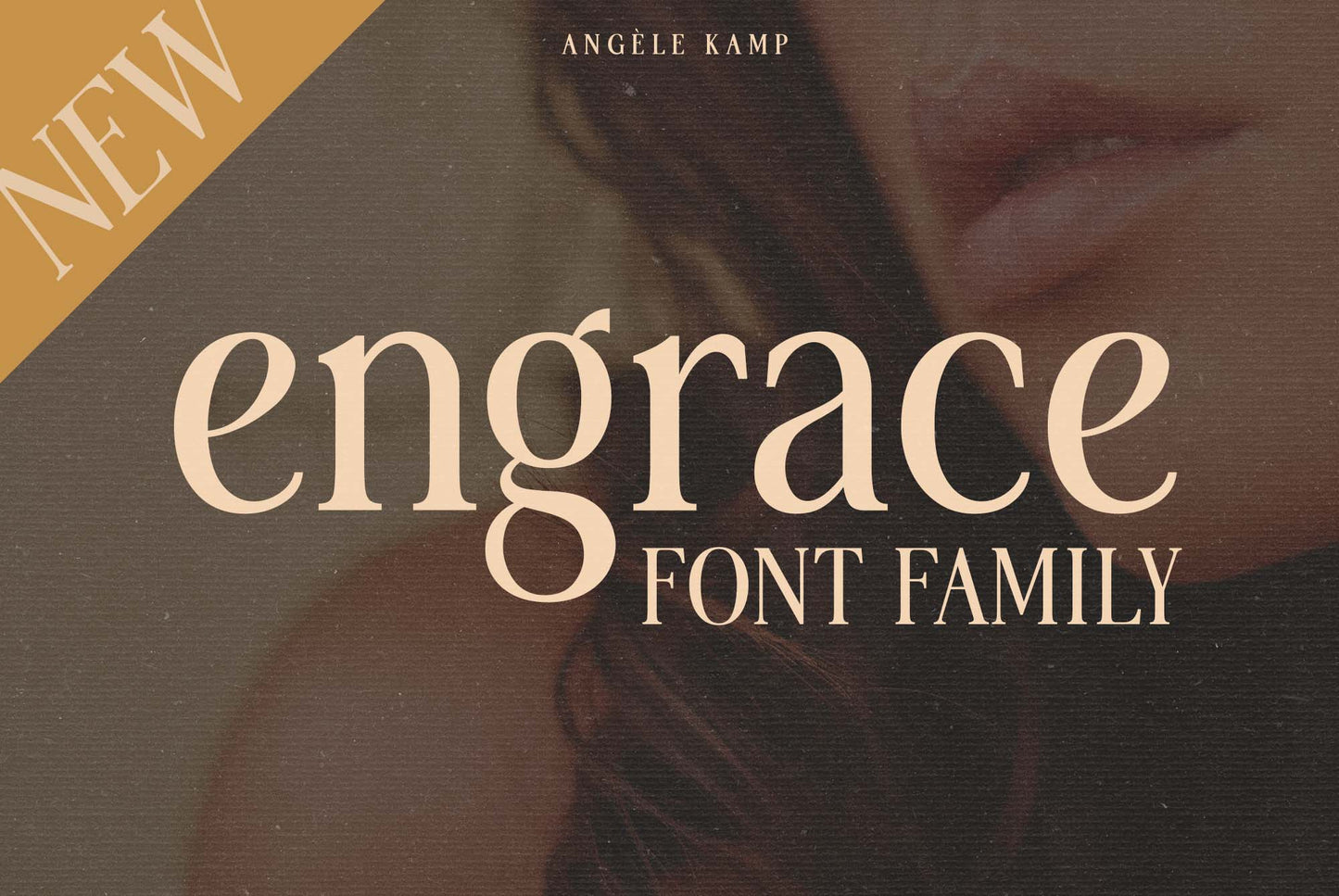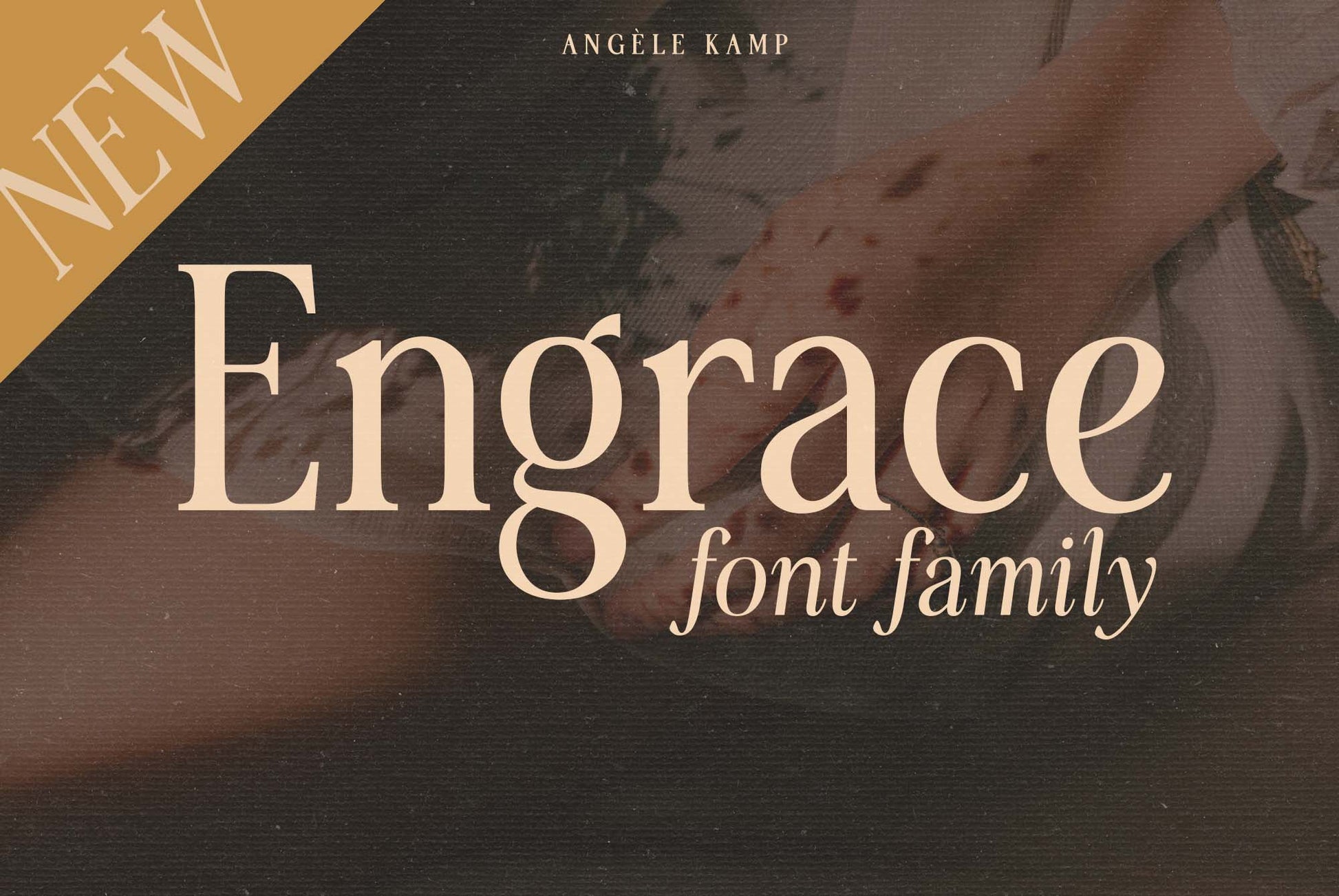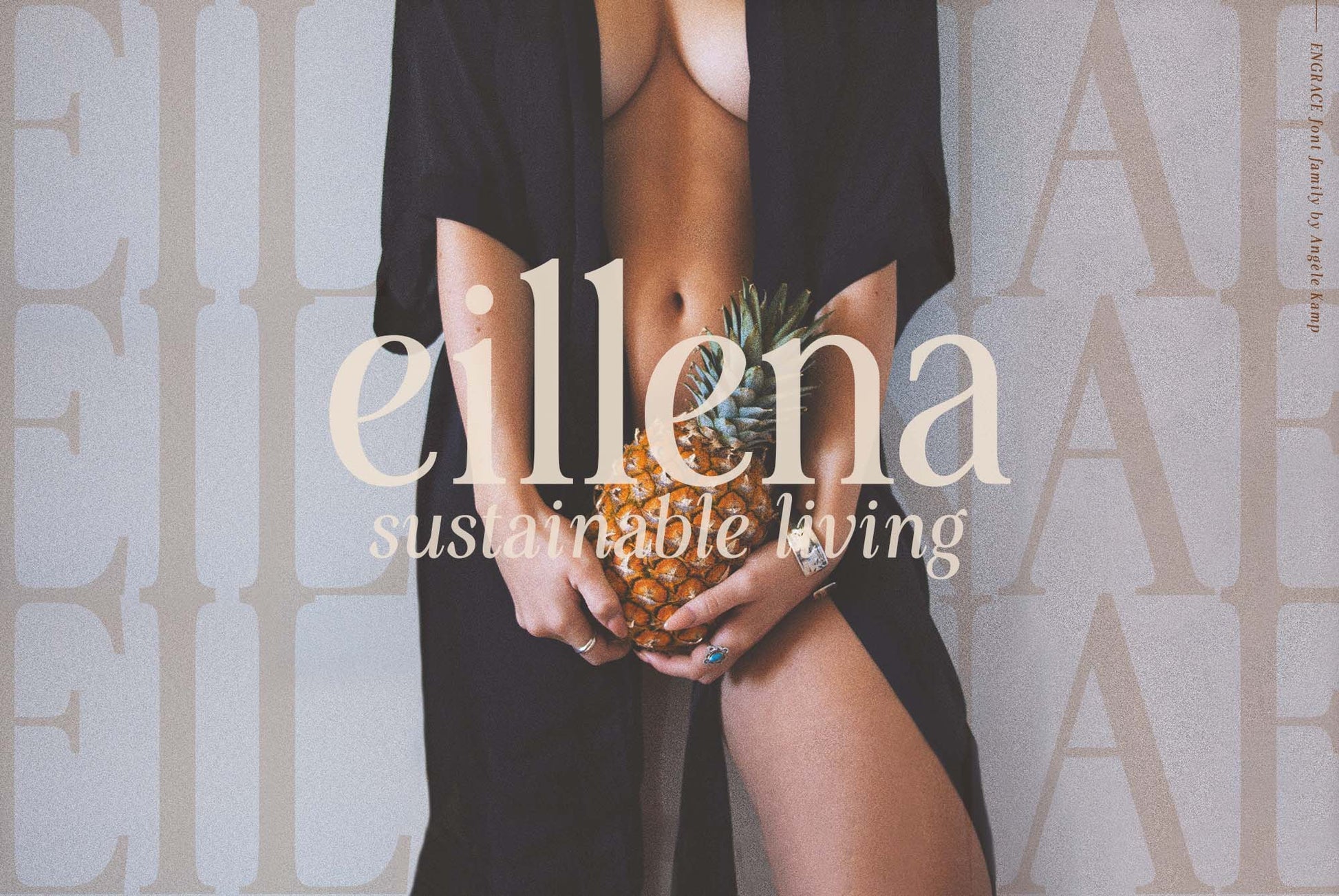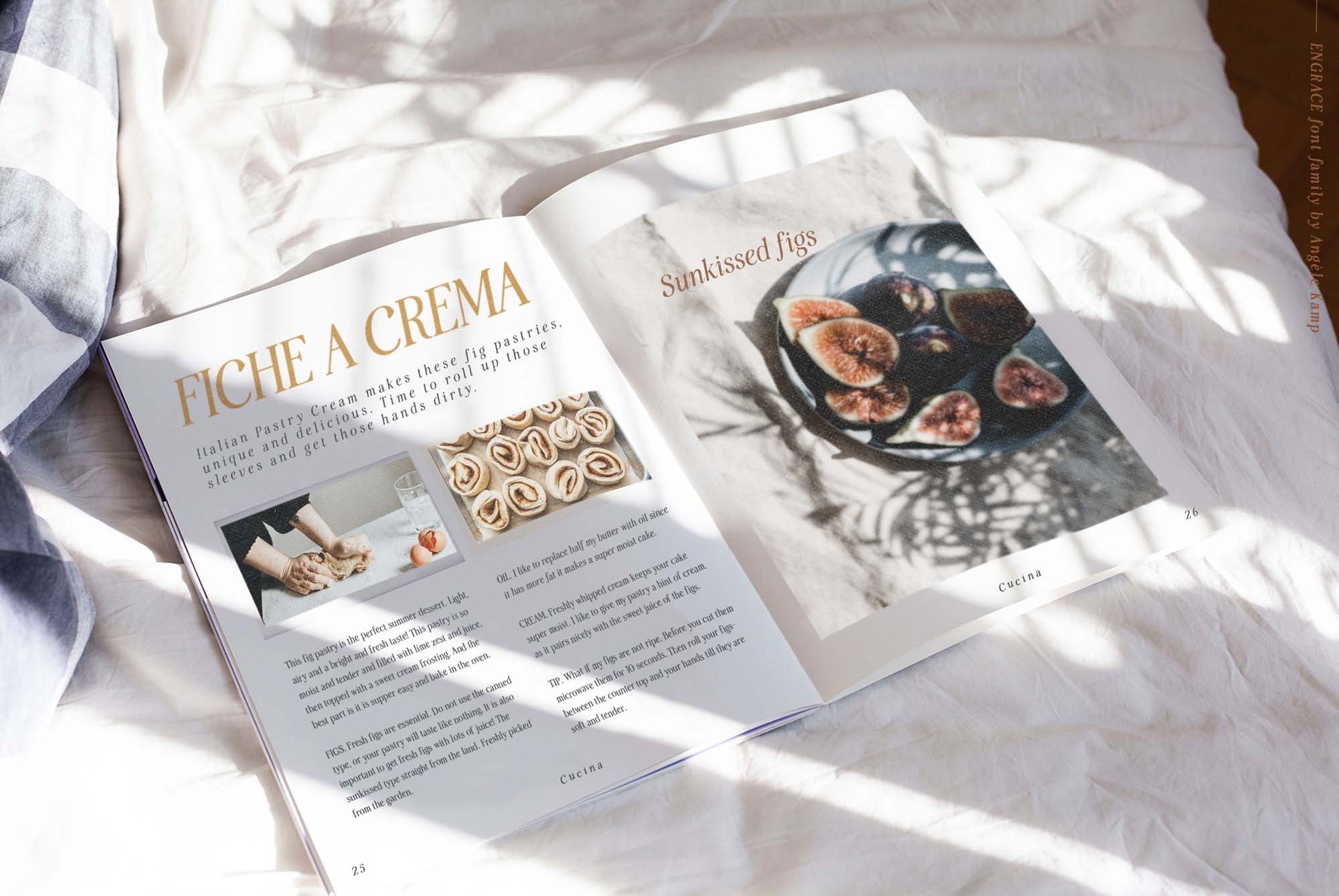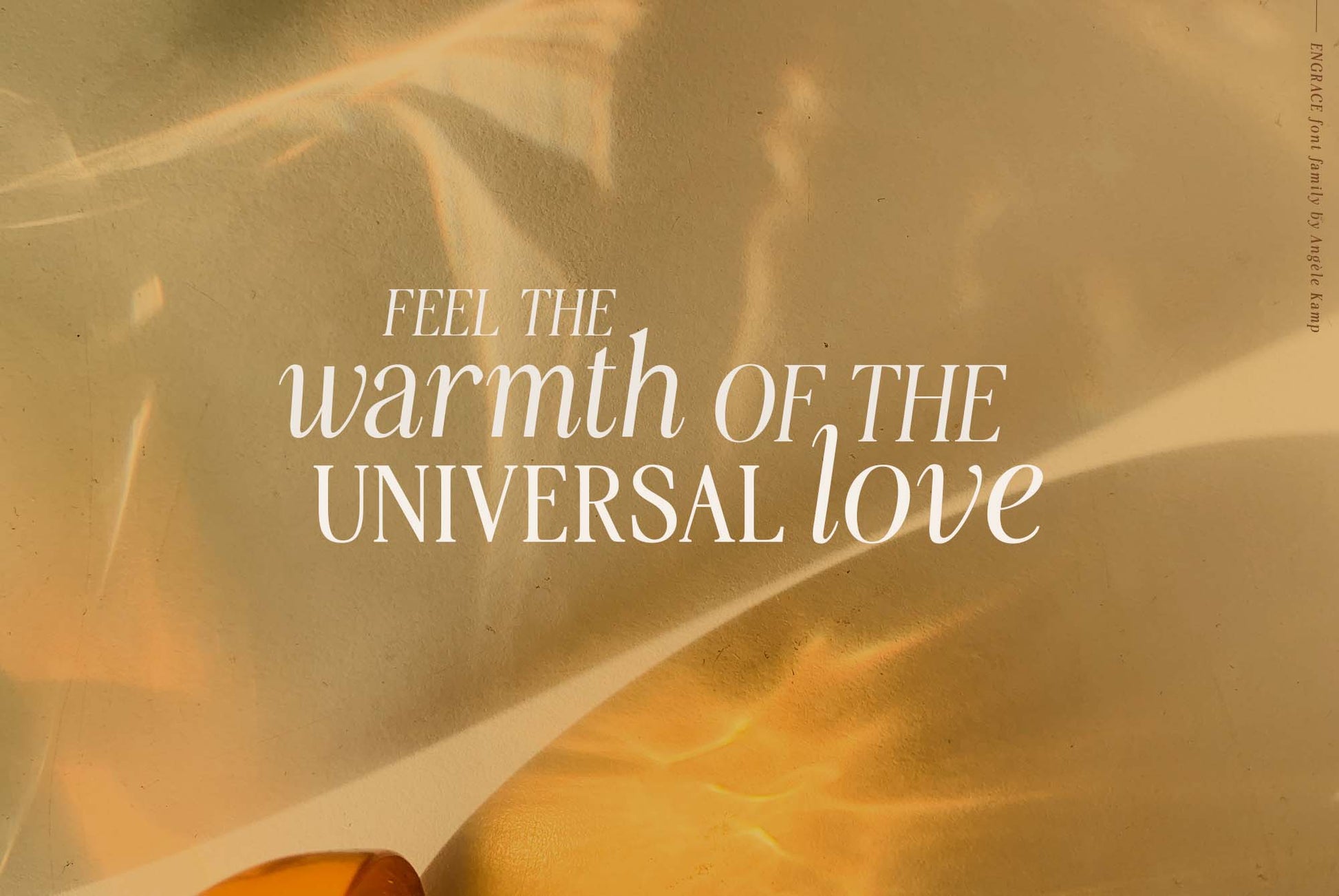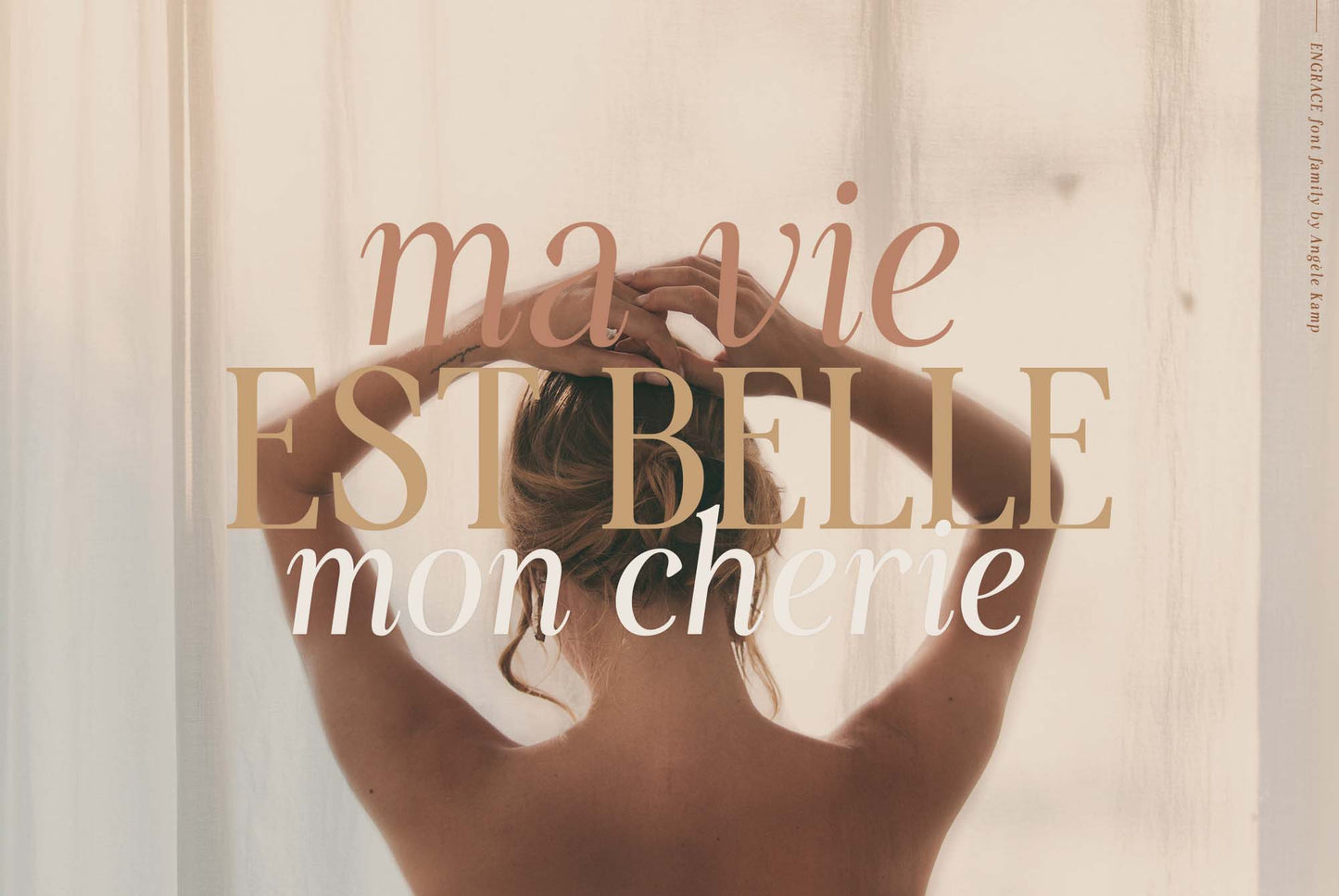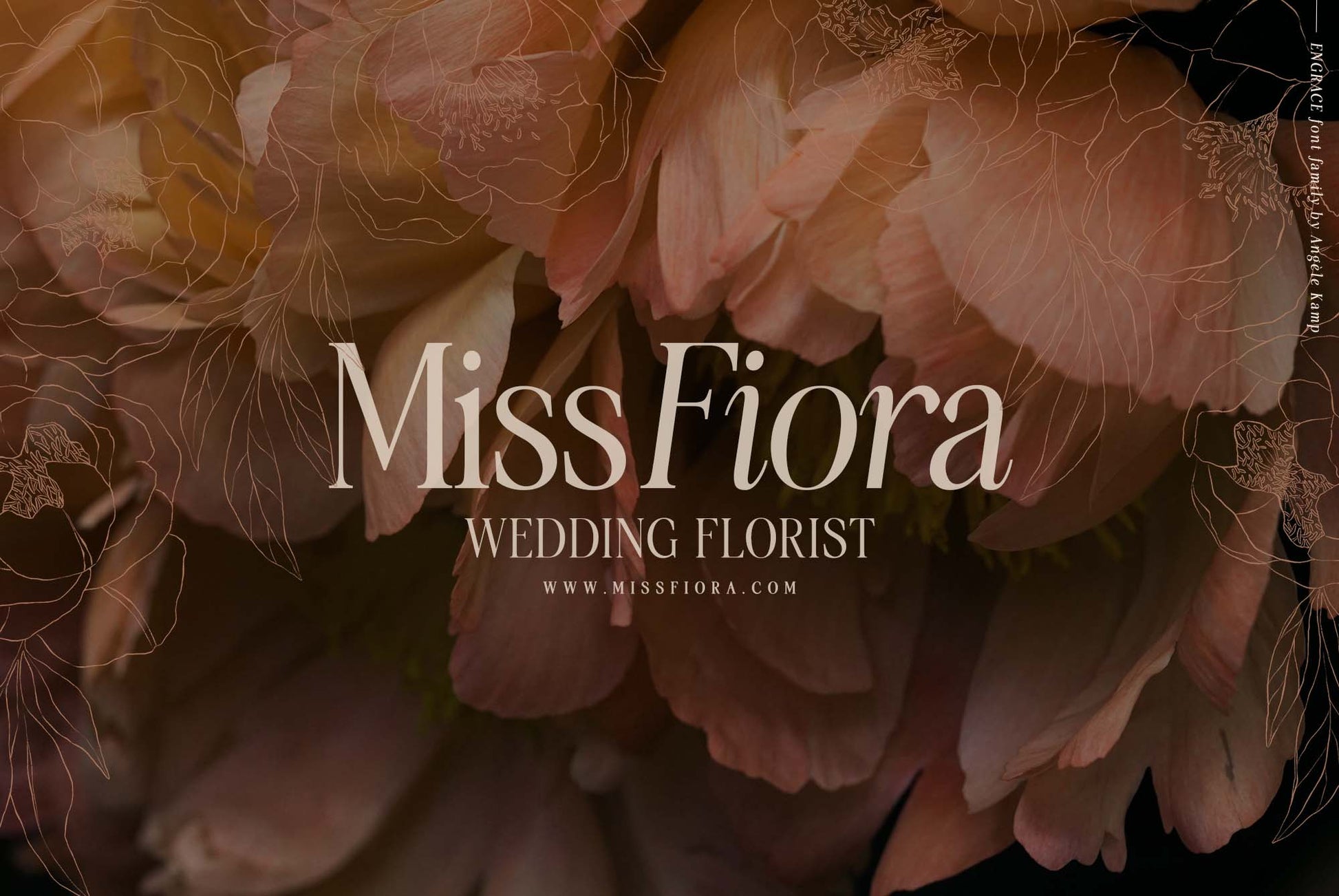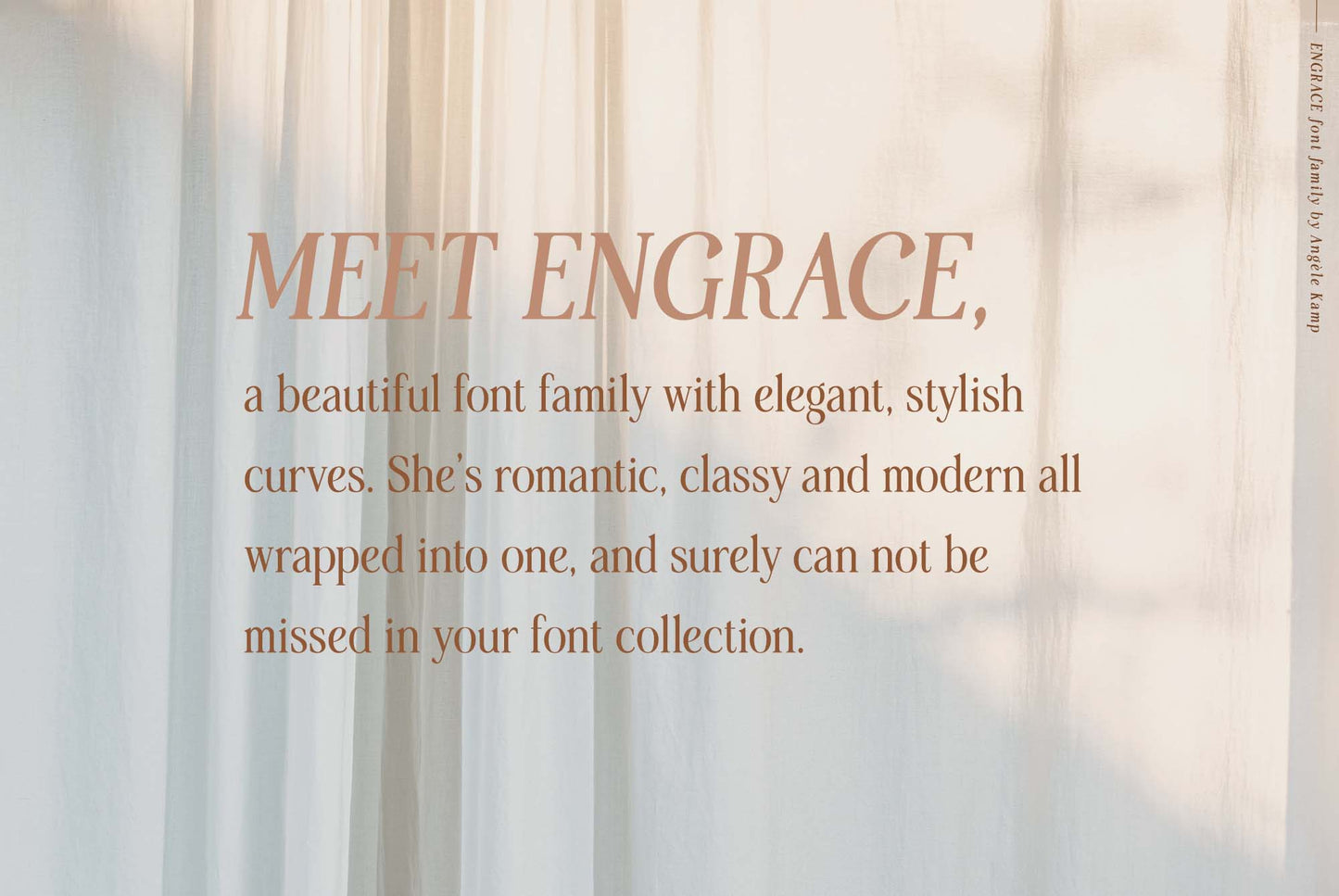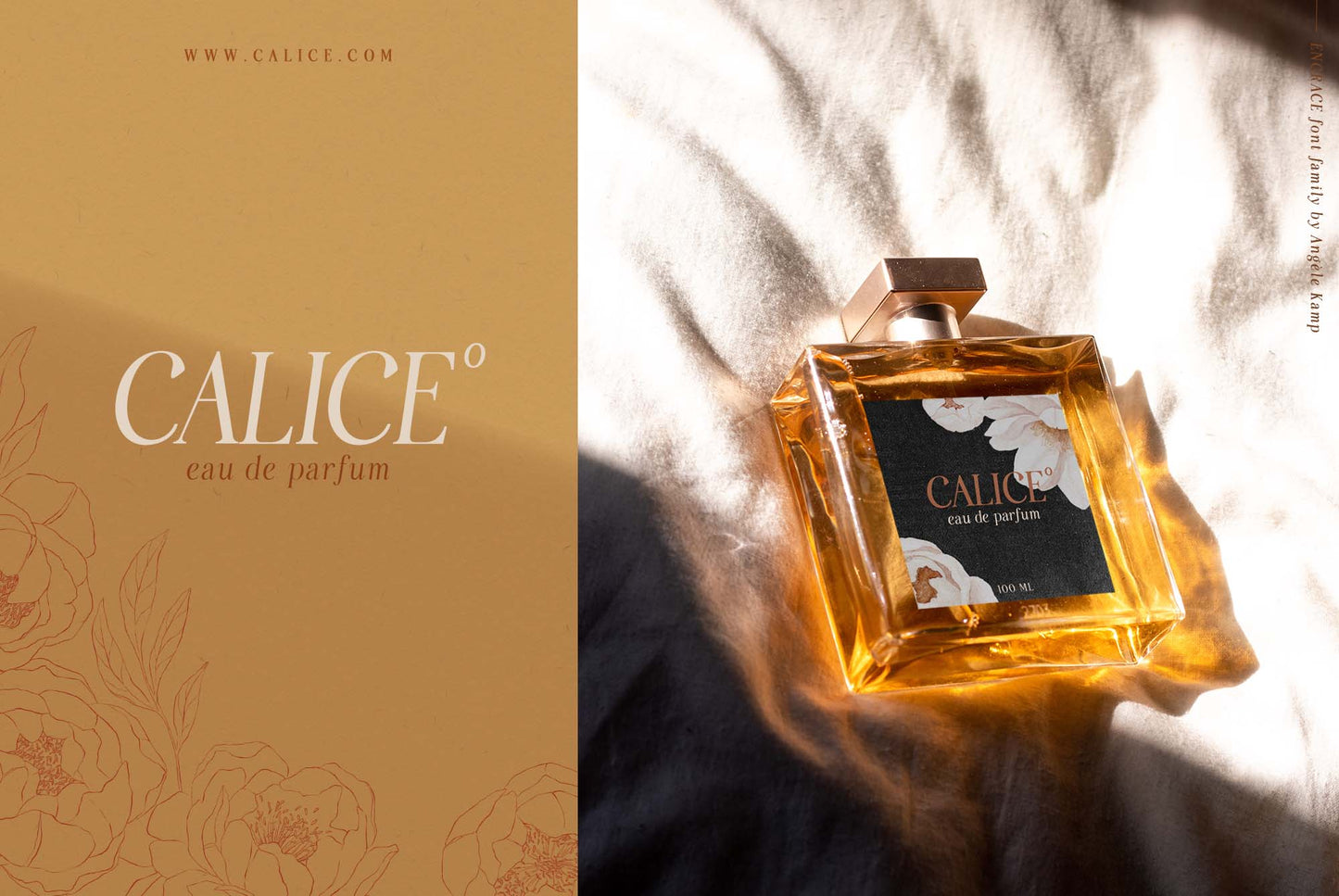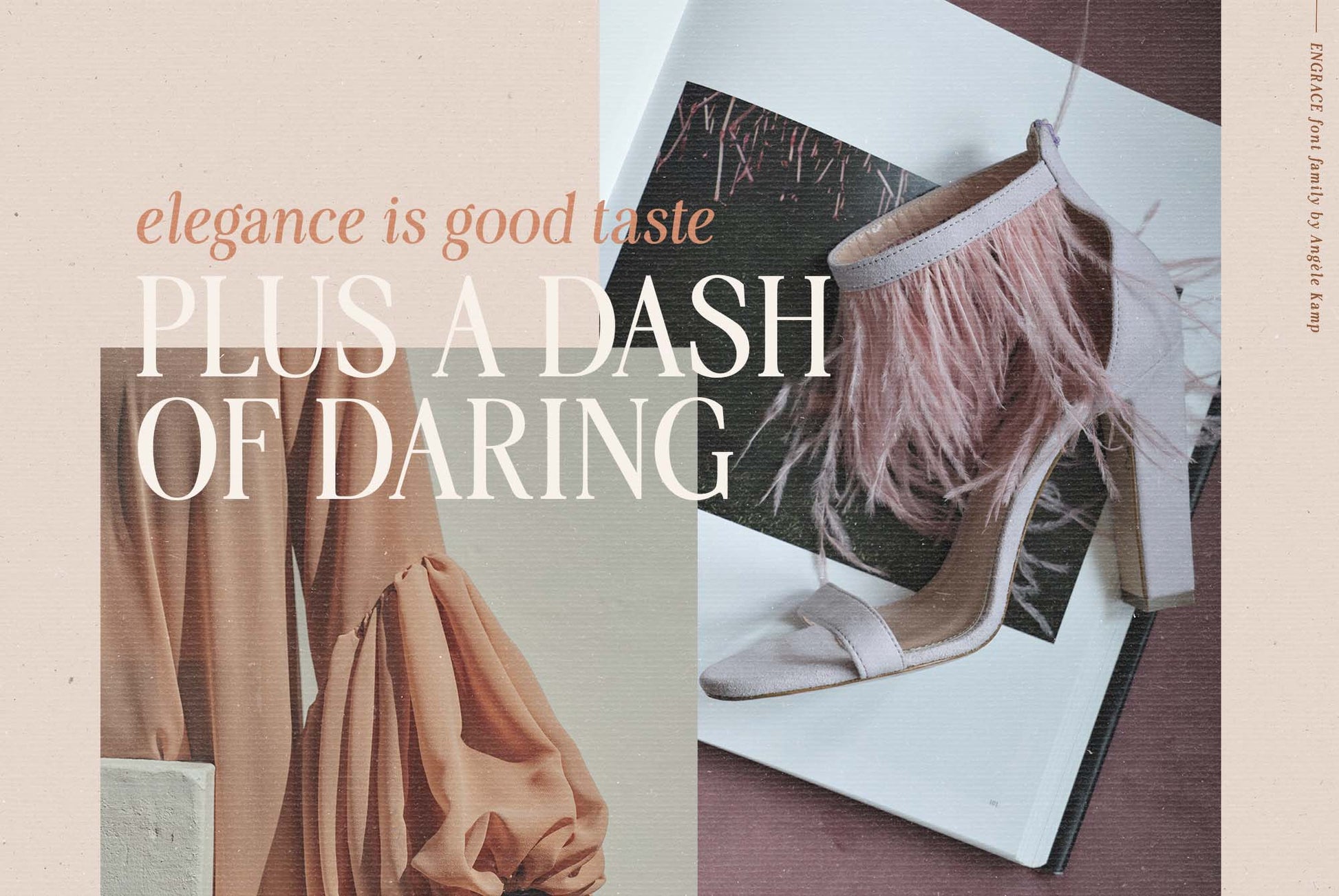
Engrace serif font family
Meet Engrace, a serif font family with elegant & stylish curves. She’s romantic, classy & modern all wrapped into one, and surely can not be missed in your font collection.